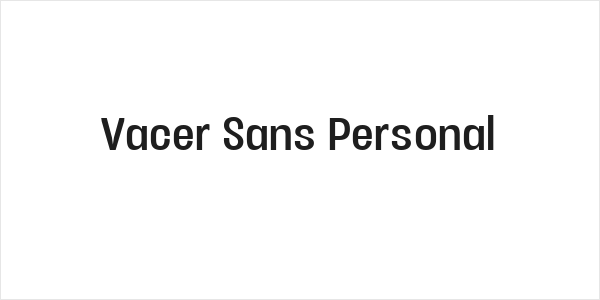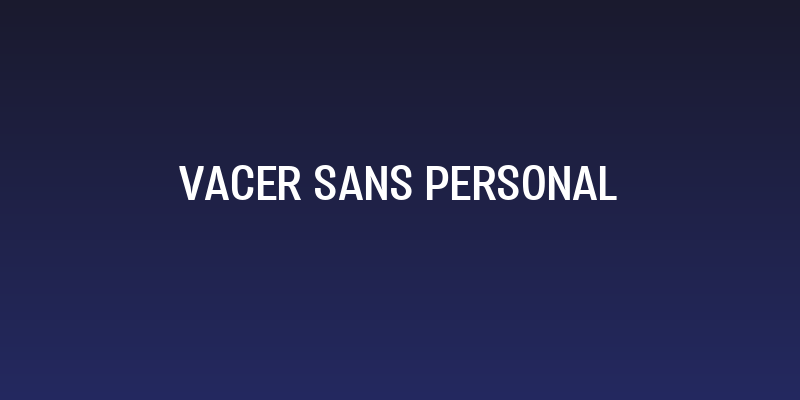
Vacer Sans Personal Font
Vacer Sans Personal Description
This typeface features a clean and modern sans-serif design, characterized by its geometric shapes and uniform stroke widths. The uppercase and lowercase letters are well-proportioned, offering a balanced and harmonious appearance. The numerals are clear and easily distinguishable, making them suitable for various applications. The special characters are designed with simplicity and clarity in mind, ensuring they blend seamlessly with the rest of the typeface. This font is versatile and can be used in a wide range of design projects, from digital to print media.